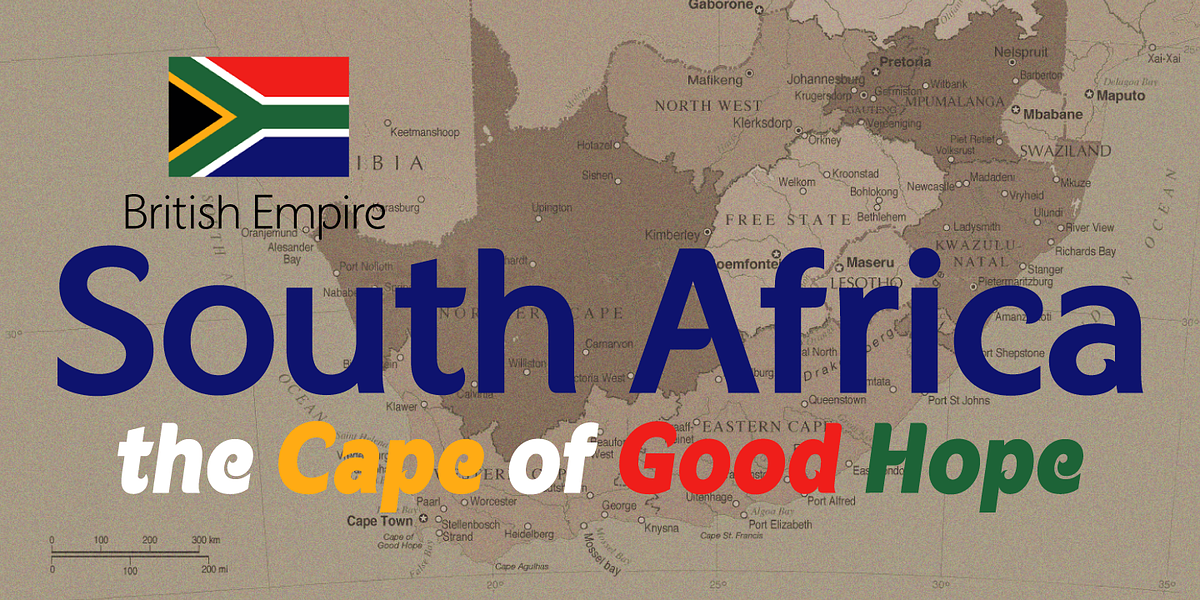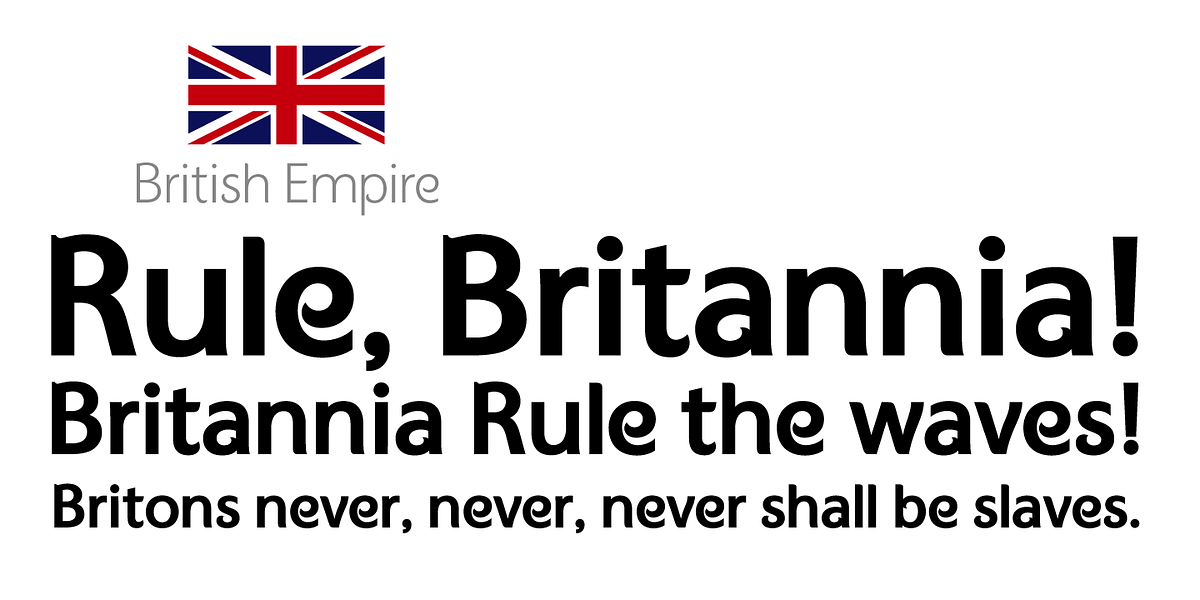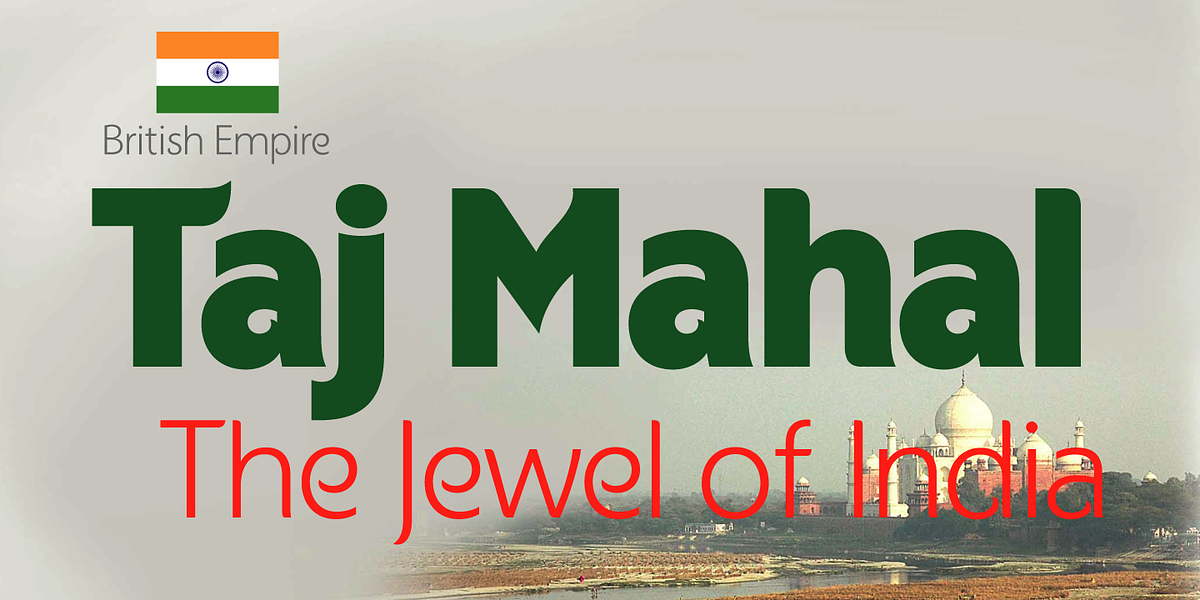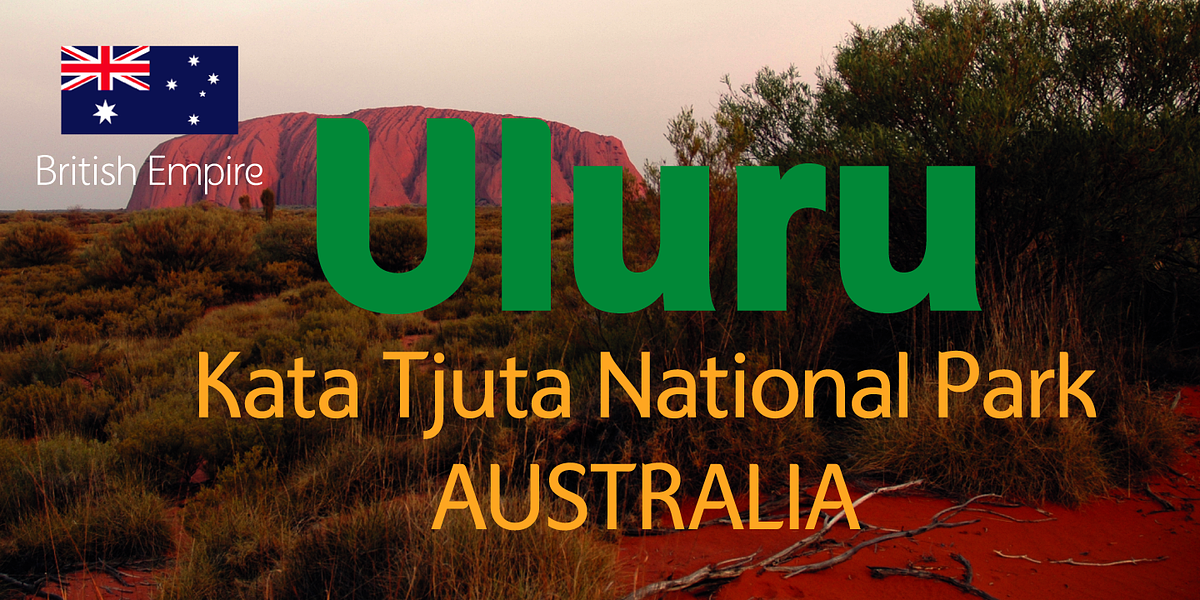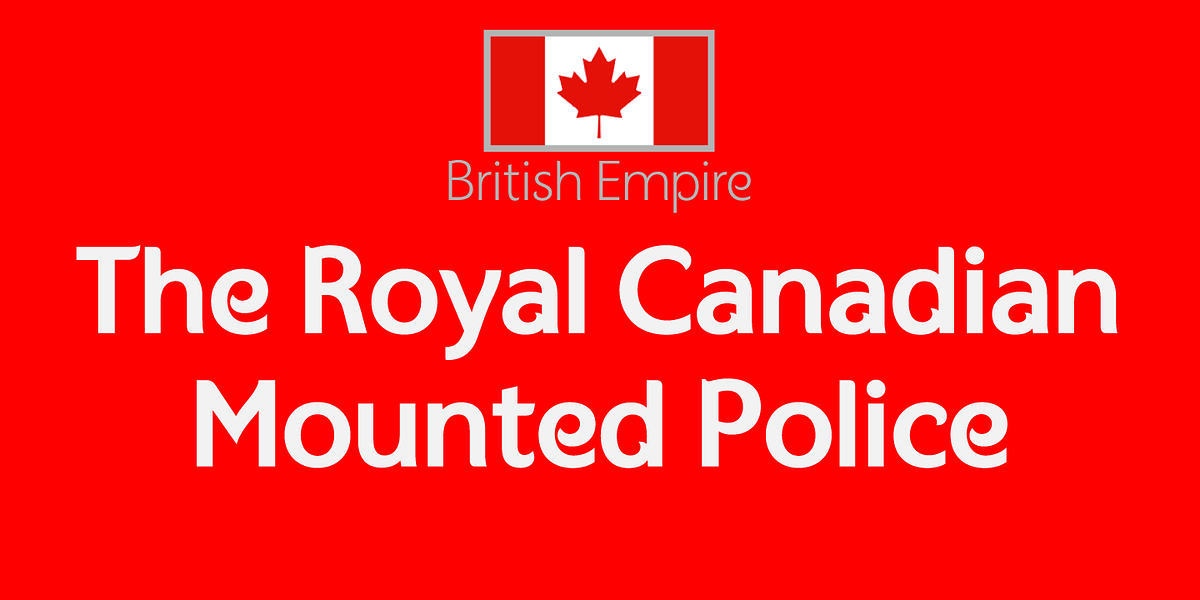
British Empire
British Empire is a sans-serif typeface designed to evoke the typographic styles of countries within the former British Empire. It features unusual up-facing serifs on some capital letters and rounded lowercase characters with flicked terminals. While intended primarily for headlines, it can also be used effectively in limited amounts of body text. The font family includes four weights with corresponding italic versions.